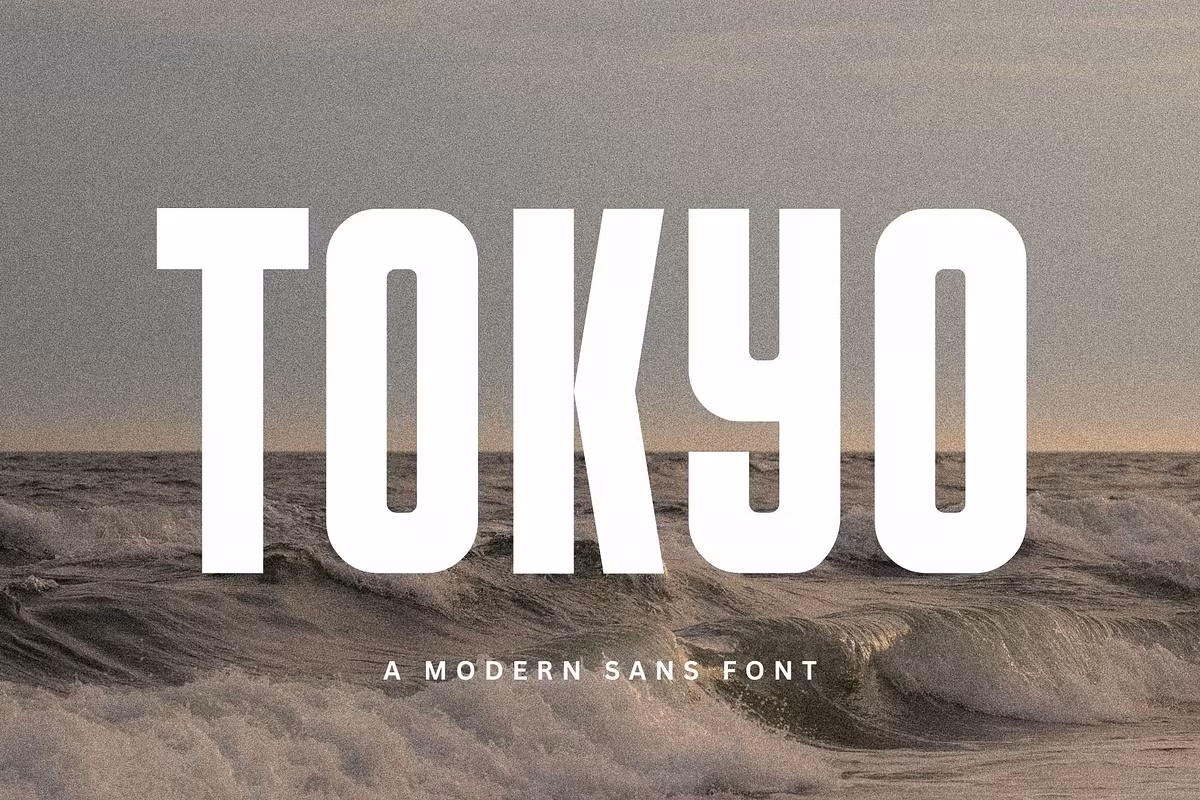
The Tokyo Modern Sans Serif Font Free Download is a sleek and contemporary typeface that brings a clean, minimalistic aesthetic to your designs. Perfect for modern branding, websites, editorial design, social media graphics, and more, this font offers a sophisticated and professional look.
With its geometric letterforms, Tokyo provides excellent readability and is ideal for both headlines and body text. It includes uppercase and lowercase letters, numbers, punctuation, and multilingual support, making it versatile for a wide range of design applications.